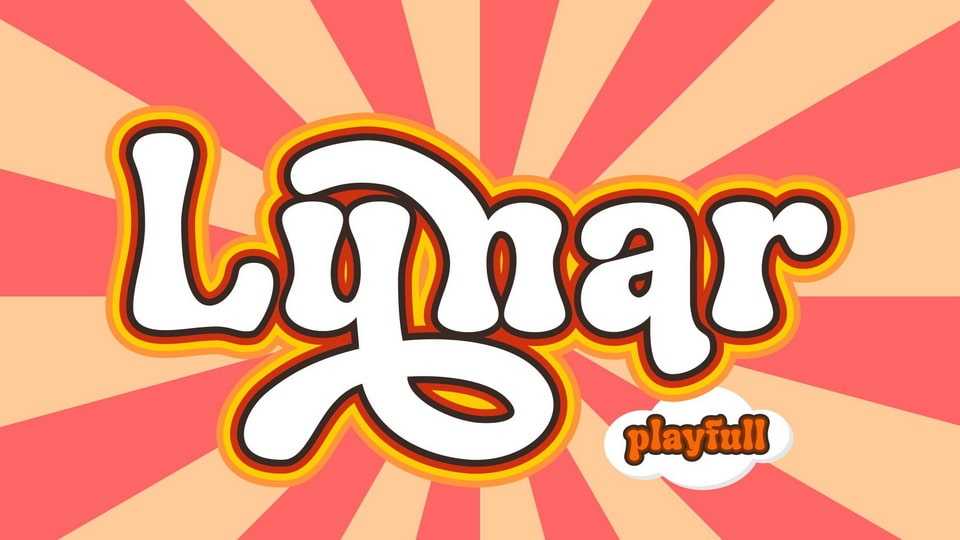
Download Lunar font, a charismatic typeface that seamlessly fuses playfulness with a touch of nostalgia, perfect from retro-inspired posters to vintage-themed branding.